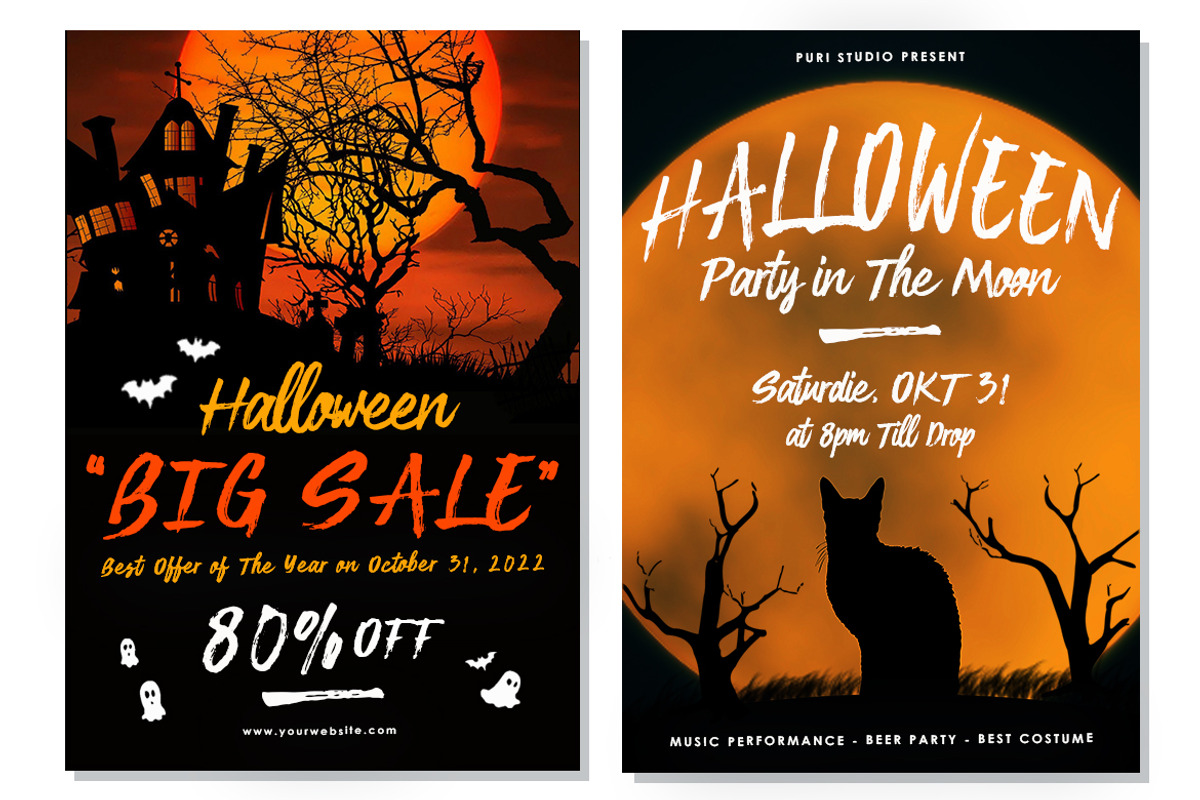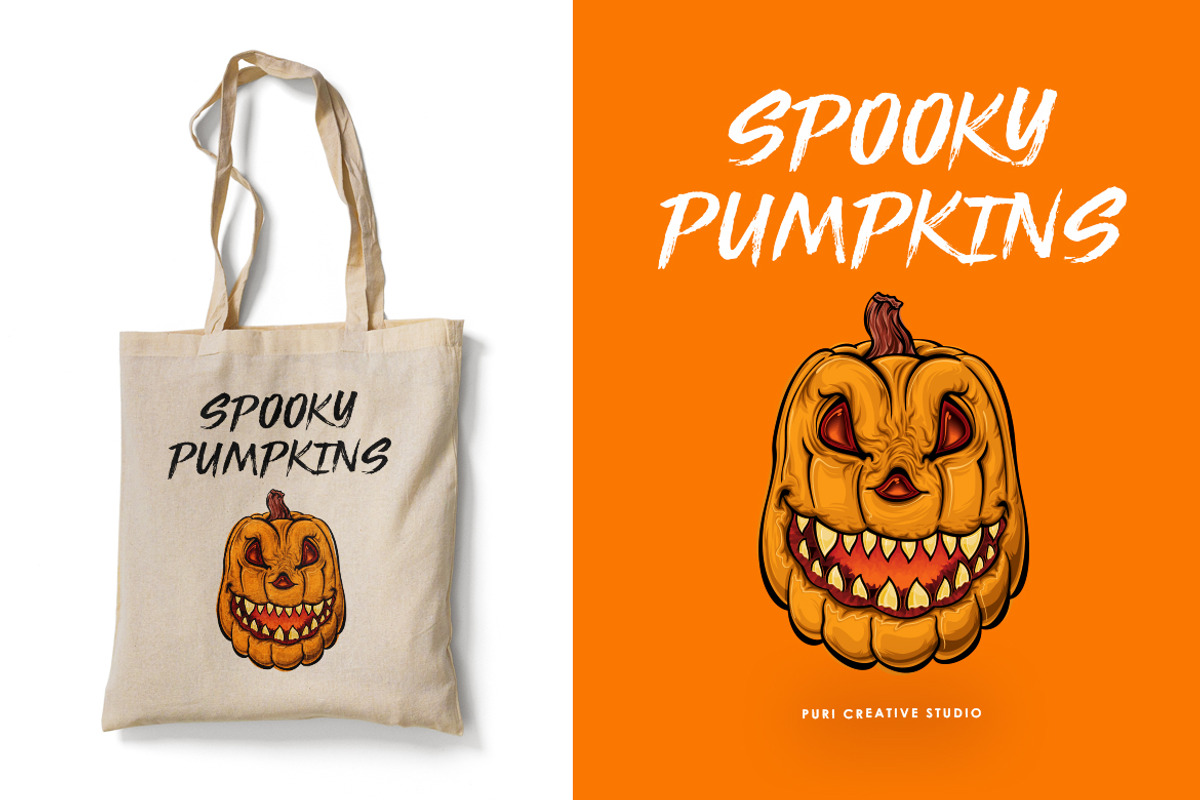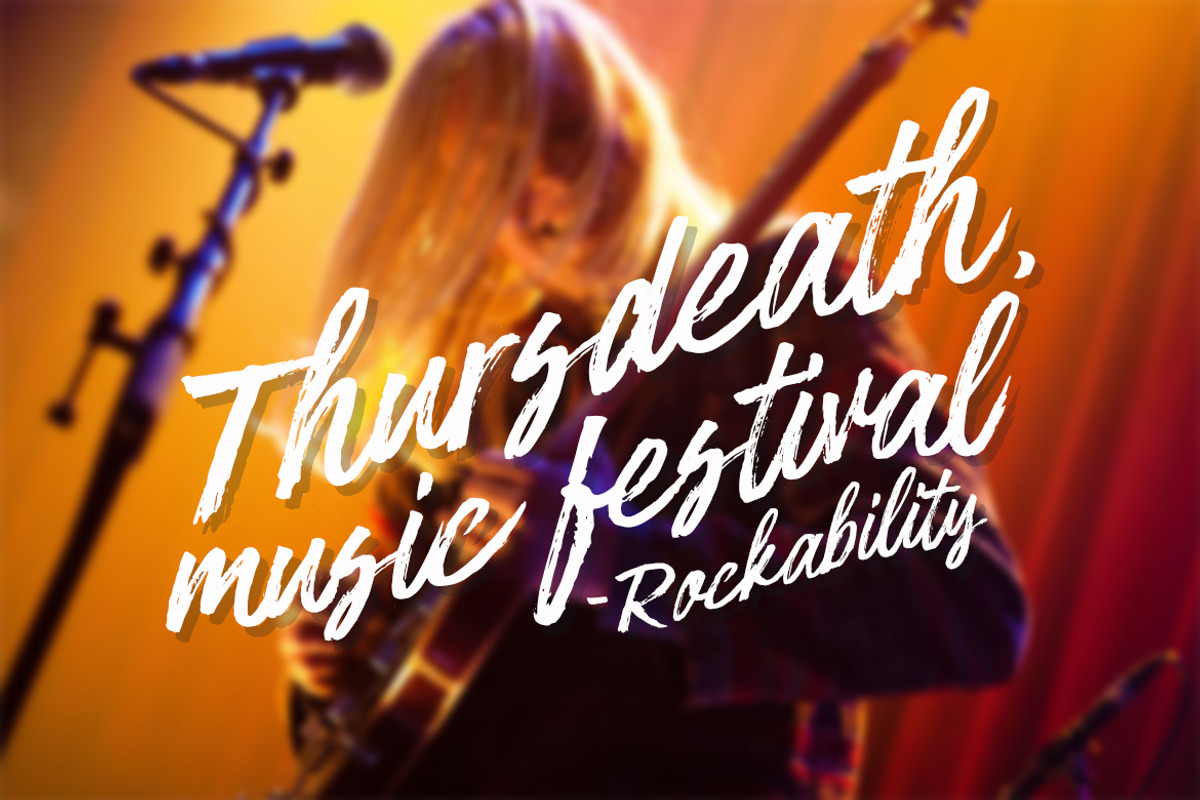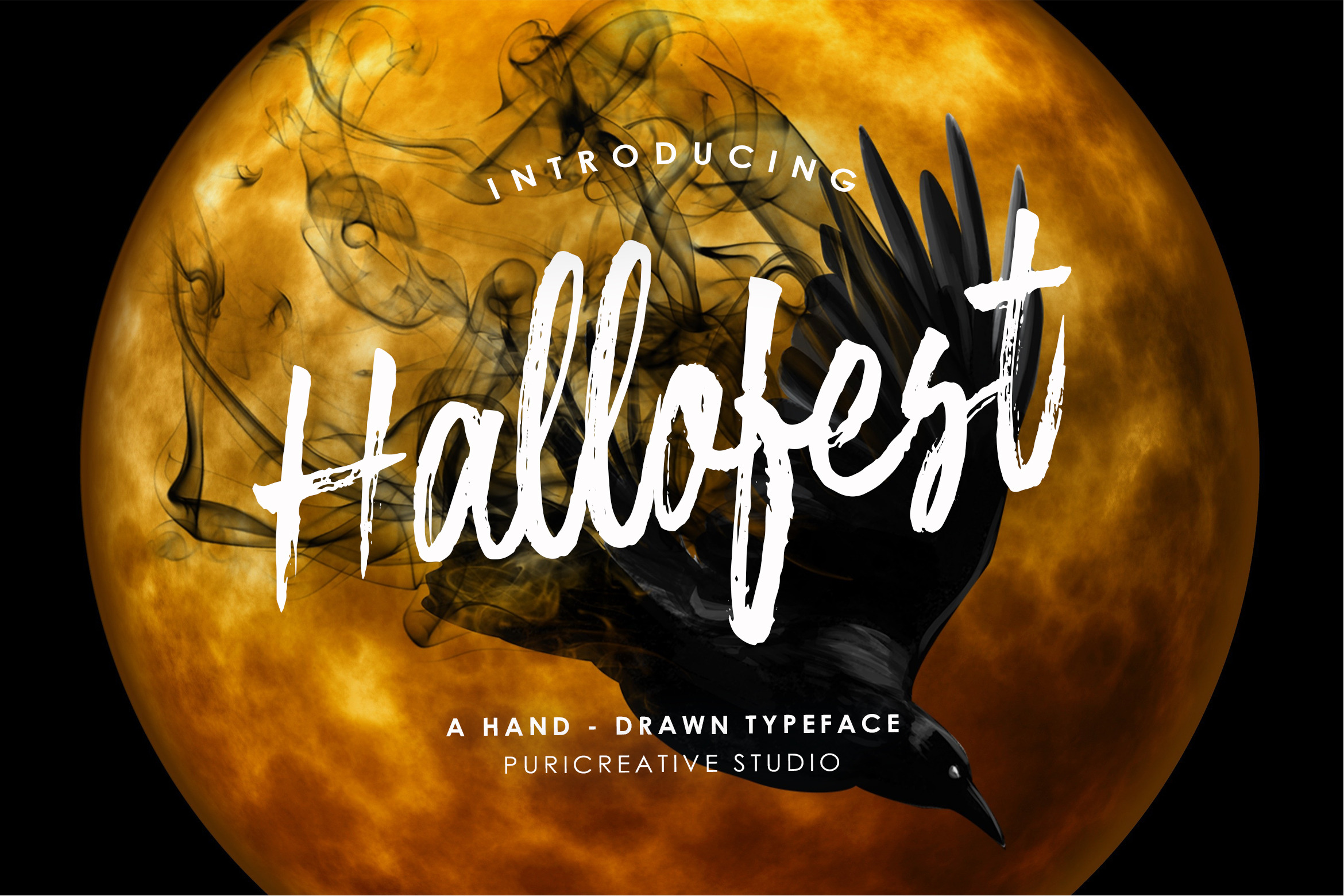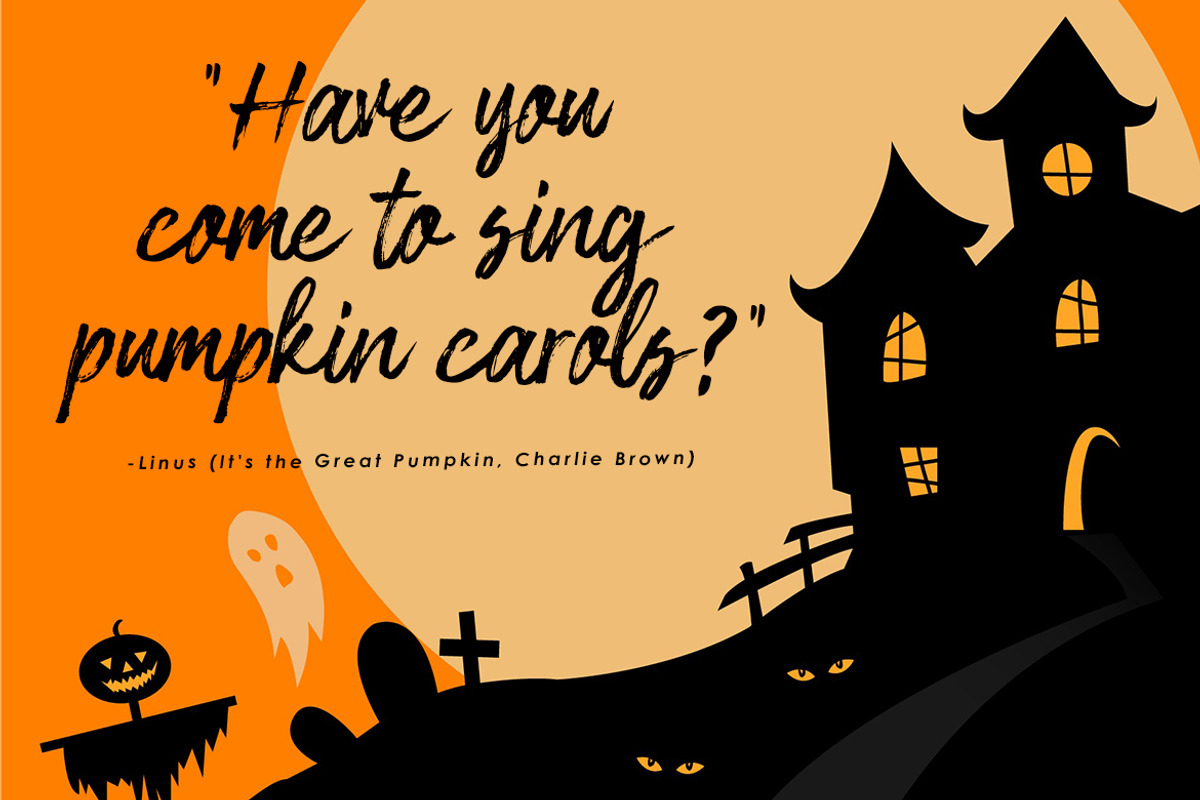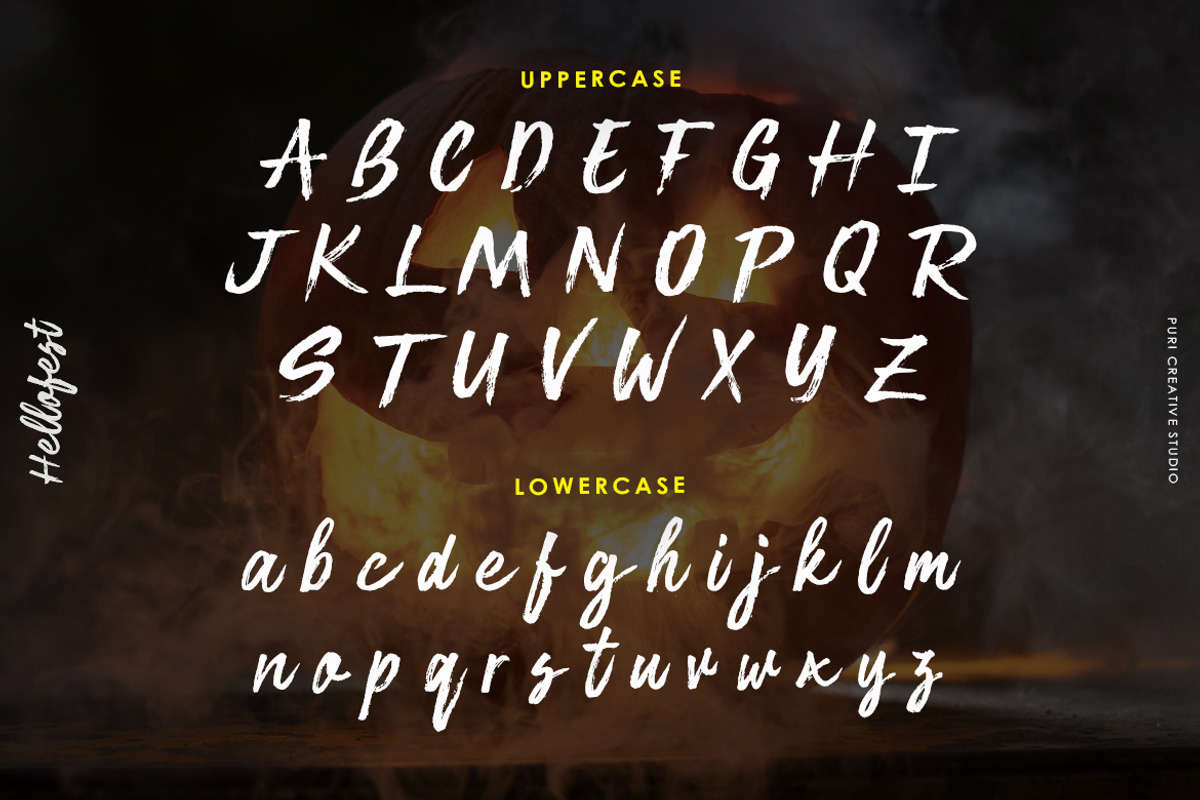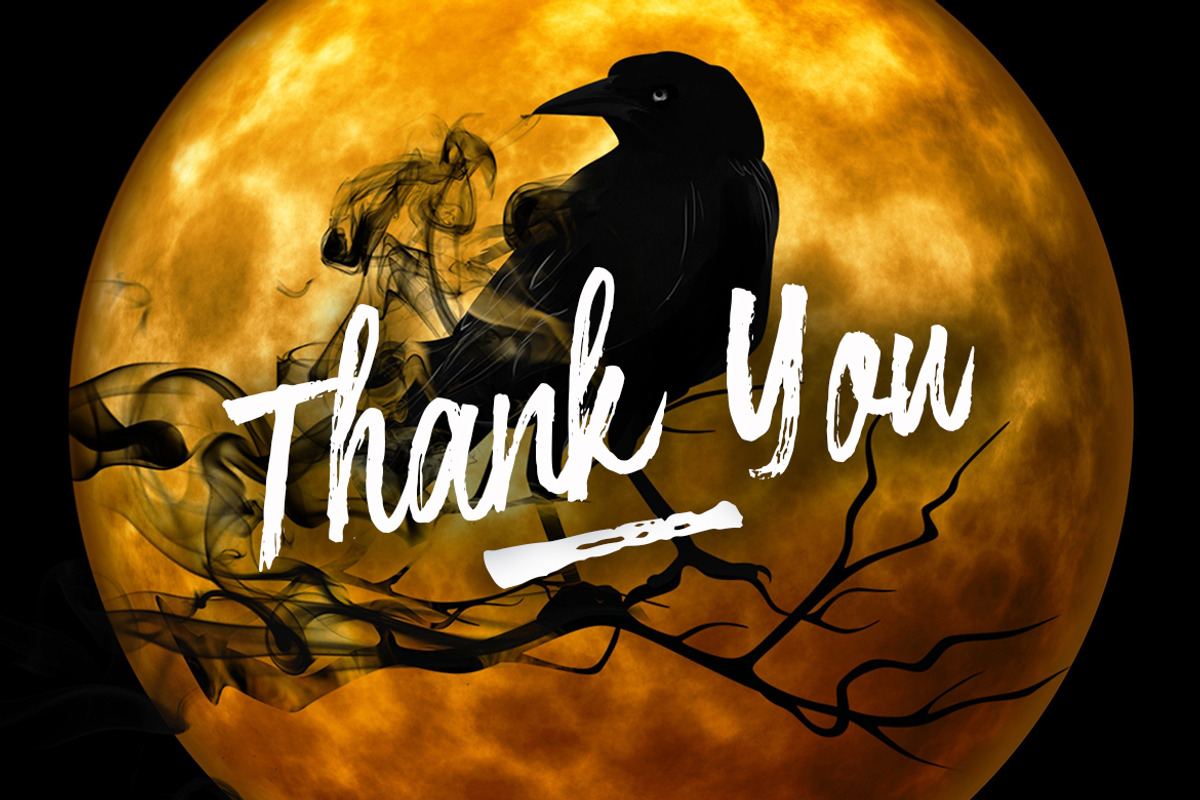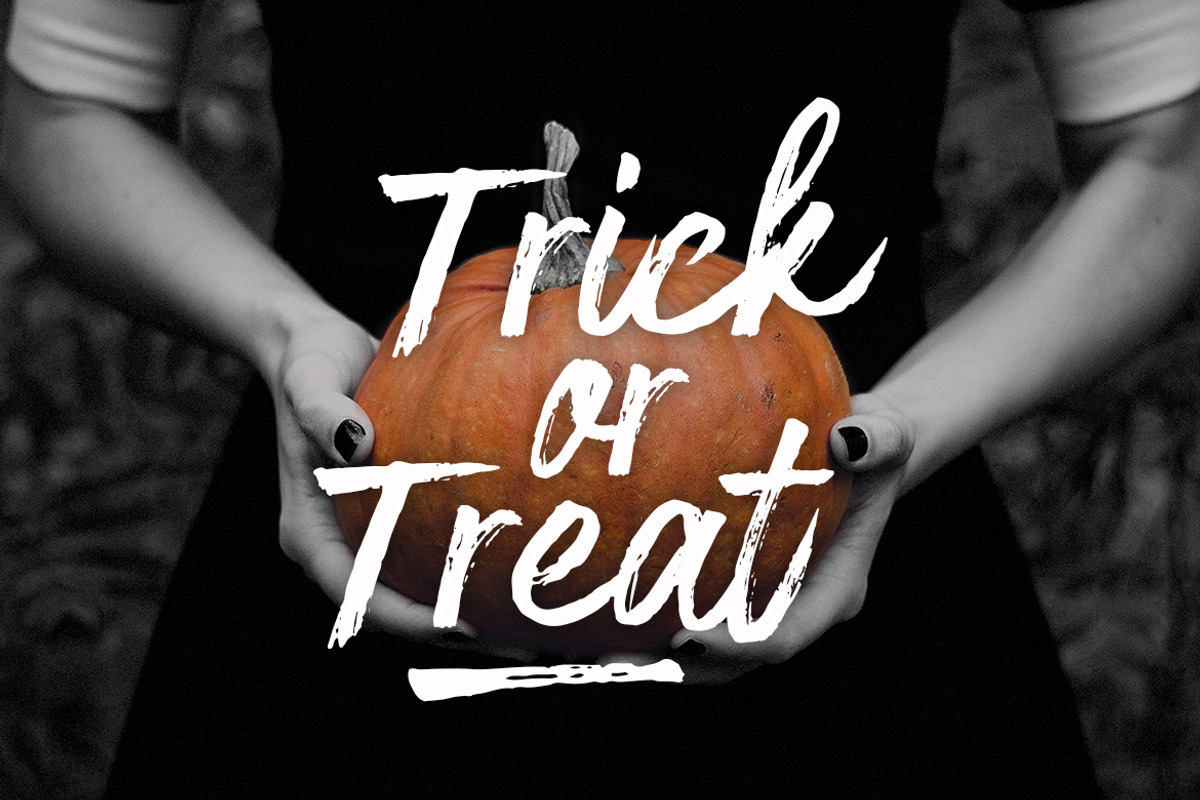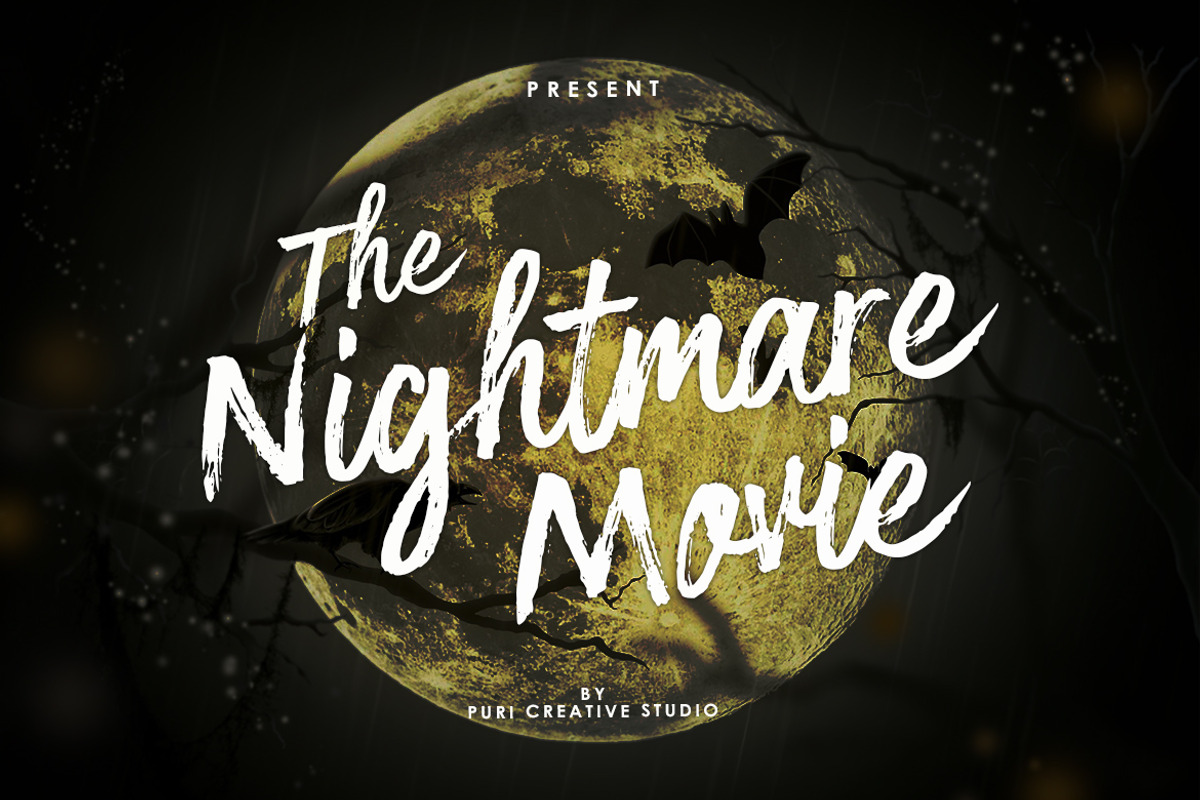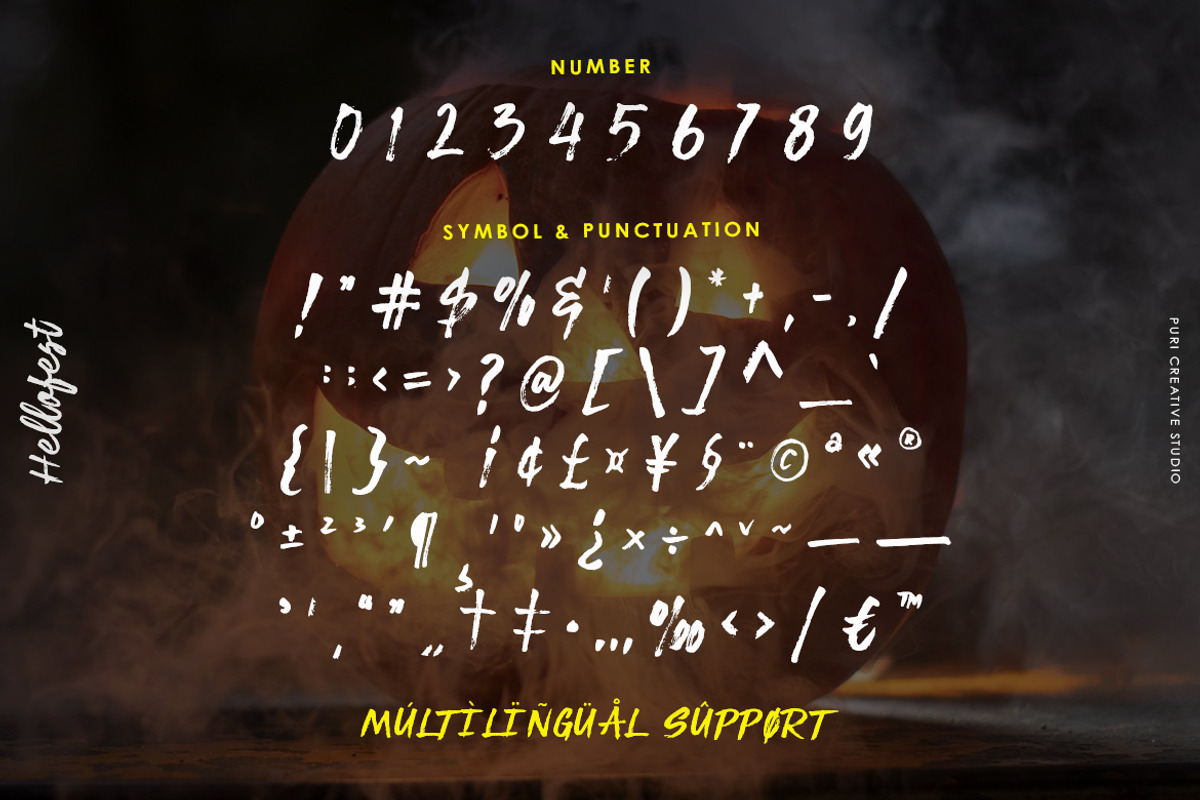
Hallofest - Hand Drawn Typeface Font
Hello, introducing new font "Hallofest". A quick handwriting font, Hallofest made with a Kuretake Brush Pen no. 22. Hallofest is a Halloween Font has many purpose and suitable for horror, movie, movie poster, modern, halloween, poster, advertising and much more.